Y2K Font Generator
The Y2K aesthetic mixes wide, spaced-out letters with soft sparkle and star symbol framing. It's the early-2000s digital look that's become popular again for bios and edits.
Y2K Sparkle is the dedicated frame for this look; pair it with Wide / Aesthetic underneath for the fuller early-2000s feel.
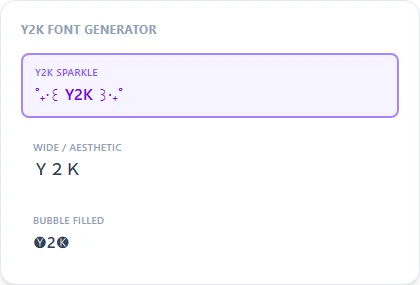
Where the Y2K text look comes from
The Y2K aesthetic revives early-2000s digital design cues: glossy chrome effects, star and diamond flourishes, and wide-spaced lowercase text from that era's web pages and CD booklets. Y2K Sparkle recreates the symbol-framing part of that look in plain Unicode text, paired with the same wide fullwidth letters used across the aesthetic font generator page.
Y2K, space, and cyberpunk overlap visually
Searches for space, futuristic, and cyberpunk fonts often land on the same wide-spaced, symbol-framed look as Y2K, since all three draw on a similar retro-digital visual language. Y2K Sparkle paired with Wide / Aesthetic covers most of that overlap reasonably well.
What symbols does Y2K Sparkle use?
A small cluster of star and diamond-shaped Unicode symbols framing your text — a plain-text stand-in for the glittery, digital-collage look associated with early-2000s web design.
Good for a space or futuristic theme too?
Y2K and futuristic/space aesthetics overlap a lot visually. Y2K Sparkle paired with Wide / Aesthetic covers both reasonably well.
Does this work well for a photo-edit caption overlay?
Yes, copy the styled text into your photo editor's text tool the same way you would any other caption; it renders using your editor's own font for the base shape.
Is Y2K the same as vaporwave?
They overlap heavily and share the same wide fullwidth text base — Y2K leans more toward glossy, sparkly early-2000s branding, while vaporwave leans more toward retro-computing and glitch nostalgia.